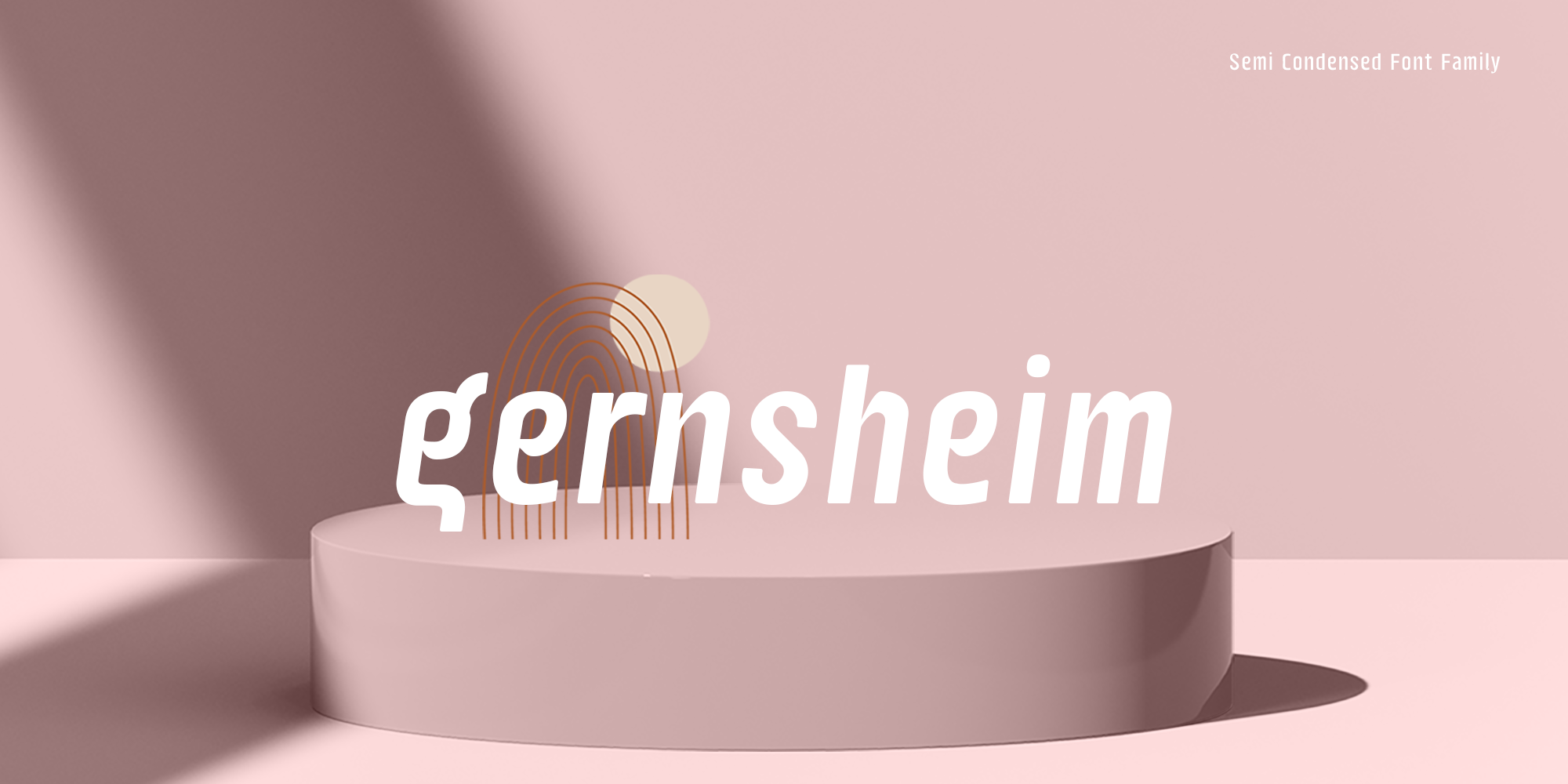
Gernsheim Font is perfect for traditional European branding, heritage bakery signage, classic German restaurant menus, authentic brewery labels, historical museum displays, artisanal craft packaging, traditional guild certificates, and Old World craftsmanship brands. This distinguished typeface excels in heritage applications, traditional European designs, and any project requiring authentic cultural character that honors historical craftsmanship and time-tested quality traditions.
What makes Gernsheim Font exciting is its authentic European heritage character and traditional craftsmanship spirit that perfectly captures centuries of artisanal excellence through meticulously crafted letterforms. The font features classically proportioned characters with subtle Germanic influences and old-world authenticity that evoke feelings of quality tradition and cultural heritage, making it ideal for brands seeking to establish connections with European craftsmanship values and convey authentic traditional quality. Its heritage personality ensures instant recognition of cultural authenticity and traditional excellence.
Gernsheim Font family includes multiple weights and styles: Regular, Bold, Light, Medium, Italic variations, and decorative alternates with traditional flourishes and heritage embellishments. Each family member maintains the distinctive European character while offering comprehensive design options for authentic heritage campaigns, from elegant traditional text to commanding old-world headlines that establish cultural credibility and traditional craftsmanship authority.
Whether you're designing heritage brand identities or creating authentic European cultural campaigns, Gernsheim Font Free Download provides the perfect typography solution for traditional craftsmanship branding needs. This font transforms ordinary text into distinguished heritage statements that communicate cultural authenticity and traditional quality. European heritage brands and artisanal craftspeople choose this typeface for its ability to convey old-world excellence through authentically crafted letterforms that honor traditional values and celebrate cultural heritage.